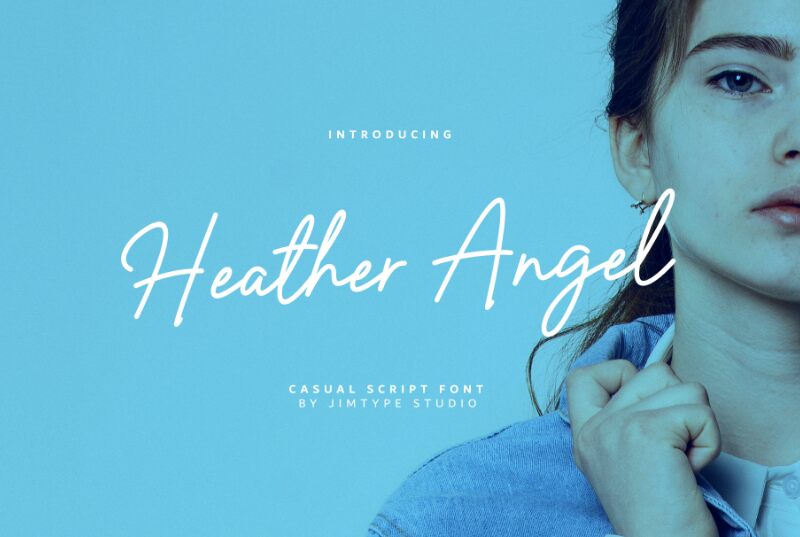
Heather Angel is a captivating handwritten signature font, crafted by Jimtype Studio, that emanates elegance and sophistication. This script-inspired design showcases a harmonious blend of graceful curves and subtle flourishes, evoking a sense of personal expression and artistry. The flowing strokes and natural variations lend an authentic, heartfelt quality, infusing any text or design with a touch of individuality and charm.
Heather Angel's versatility makes it a compelling choice for a wide range of creative projects, from wedding invitations and greeting cards to branding materials and product packaging. Its refined yet approachable aesthetic seamlessly integrates into elegant, feminine-leaning designs, adding a personal touch that captivates the viewer. Whether crafting heartfelt messages, designing sophisticated brand identities, or elevating the visual appeal of print and digital media, Heather Angel is a font that effortlessly bridges the gap between elegance and authenticity.